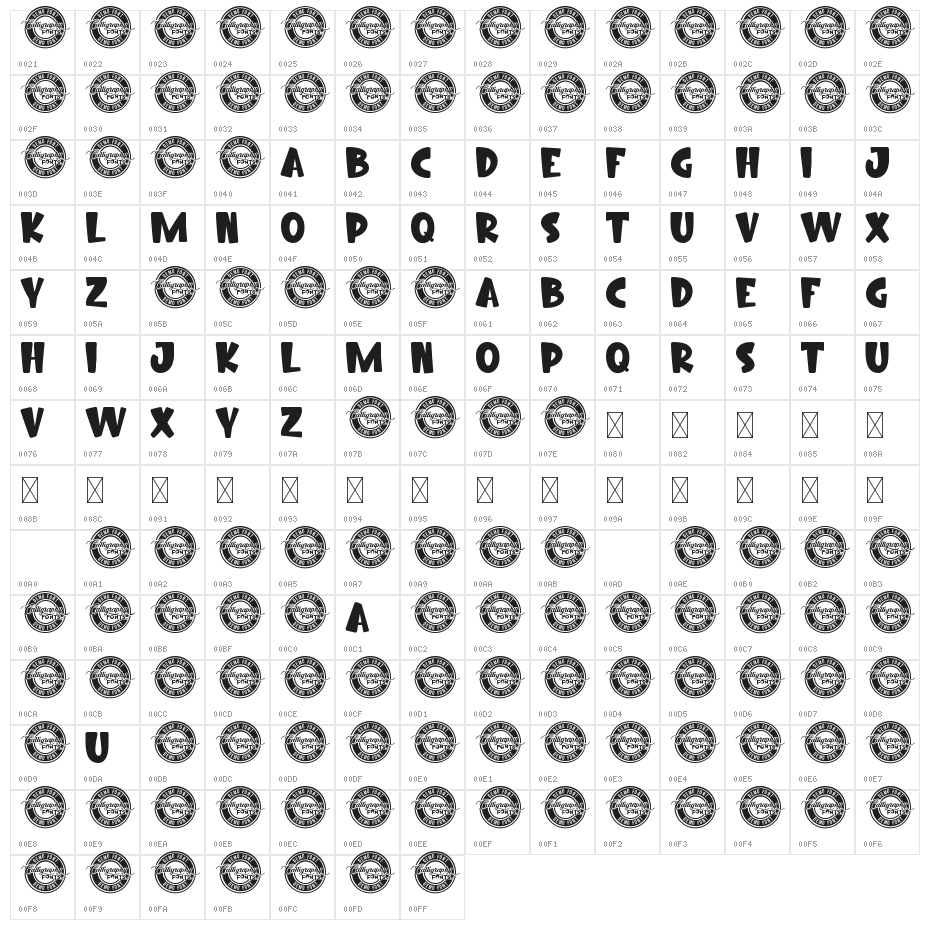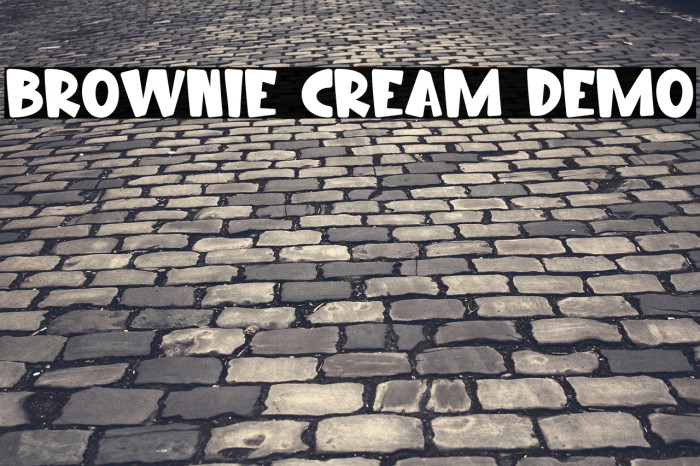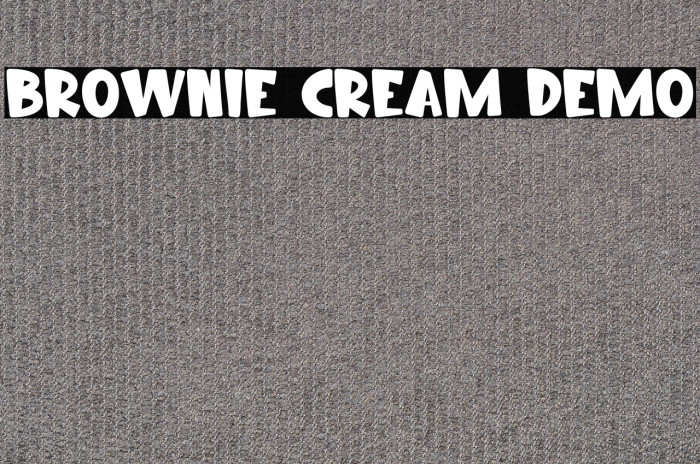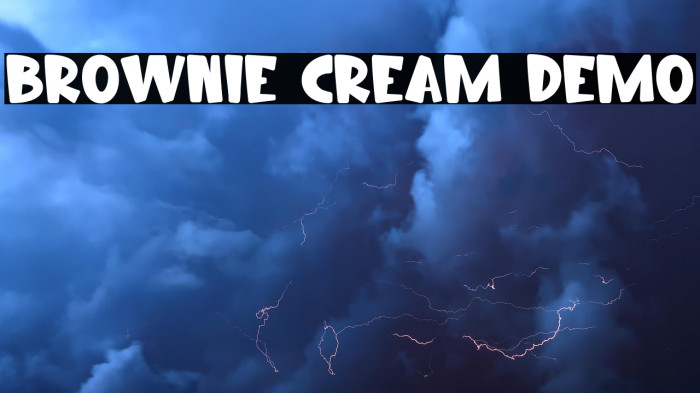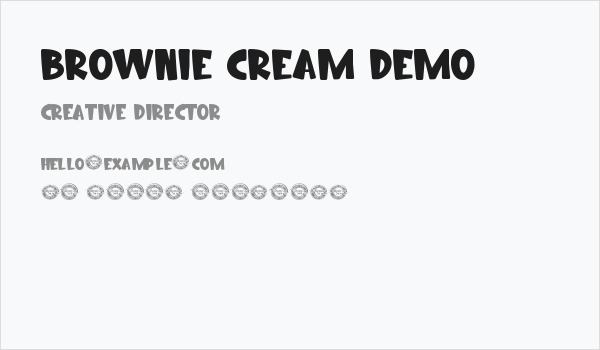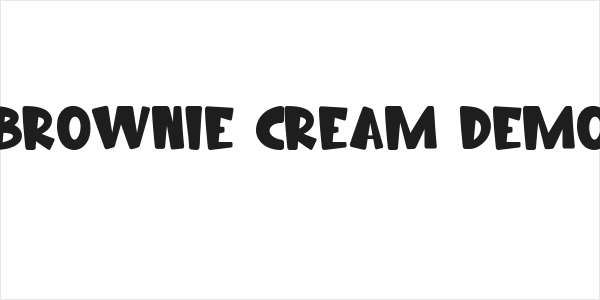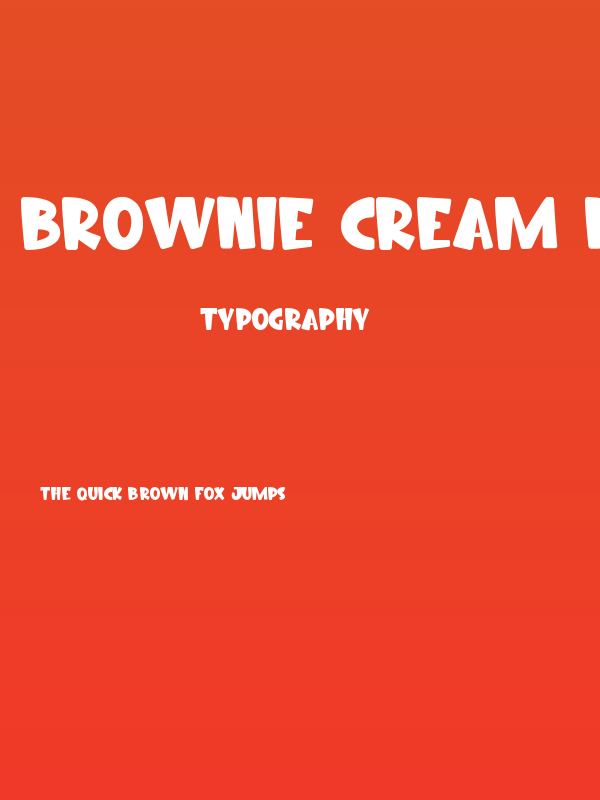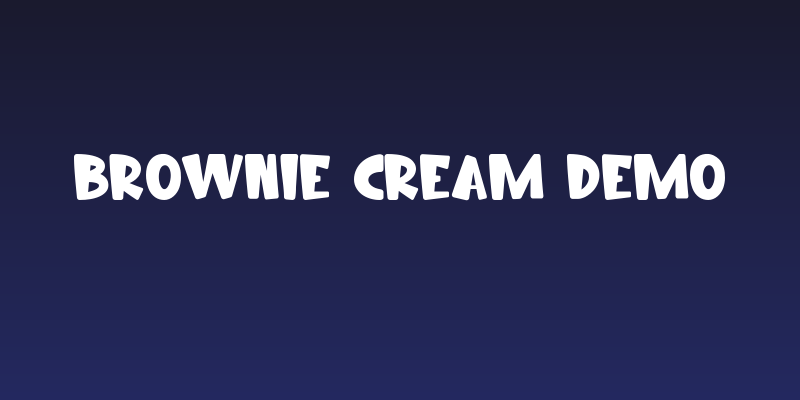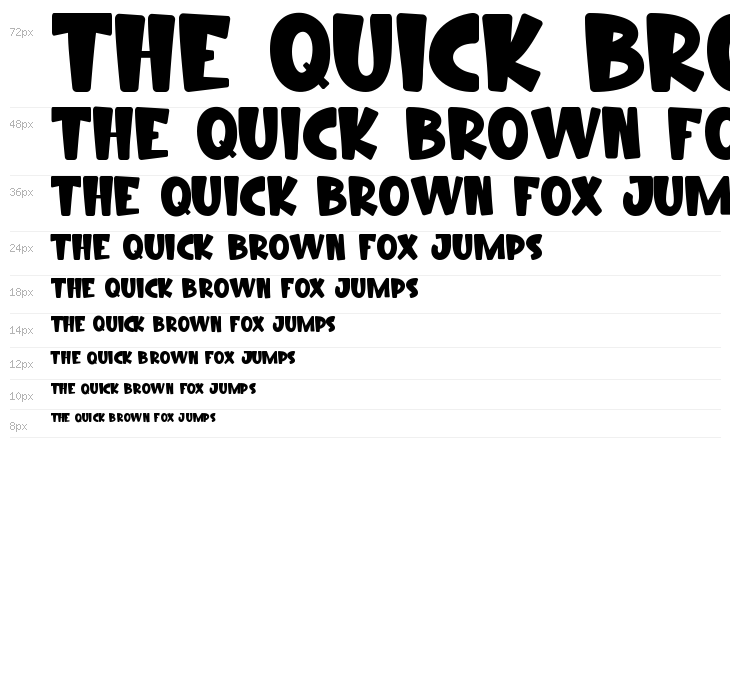
Brownie Cream Demo Font
Brownie Cream Demo Description
This font features bold, playful characters with a slightly irregular shape, giving it a whimsical and friendly appearance. The letters are thick and rounded, with a consistent stroke width that adds to its boldness. The uppercase and lowercase letters maintain a cohesive style, making it versatile for various design needs. The font's unique style is eye-catching and suitable for creative projects that require a fun and approachable look.
Overall StylePlayful
Proposed ProjectsIdeal for children's books, playful branding, posters, and social media graphics.